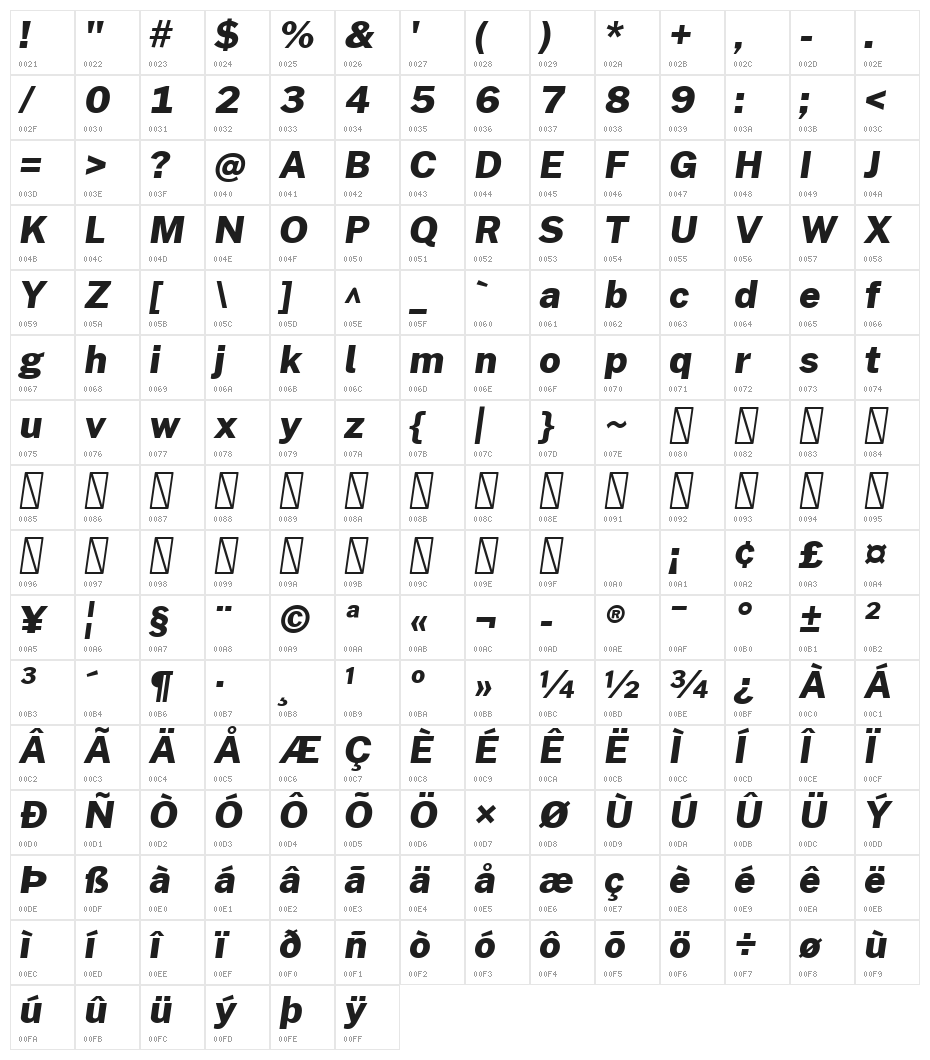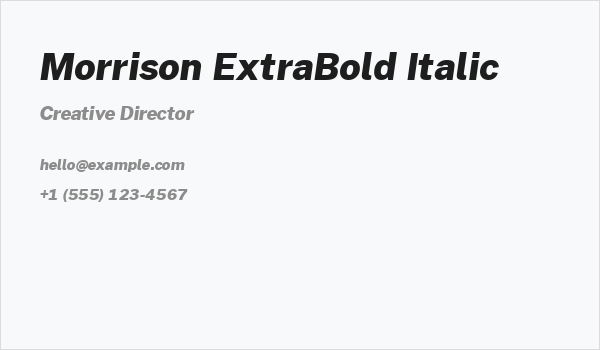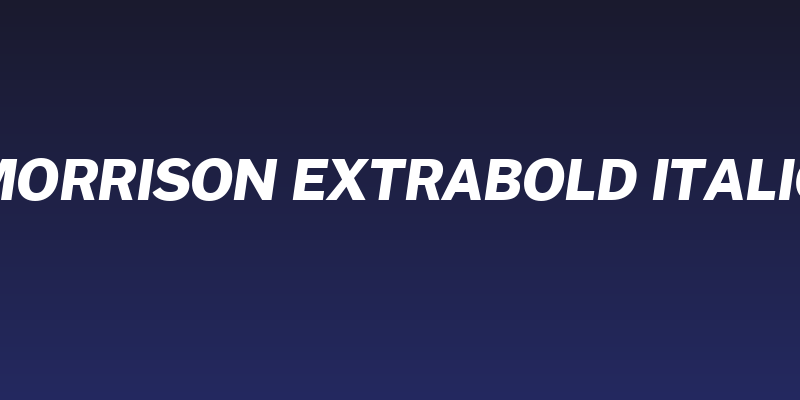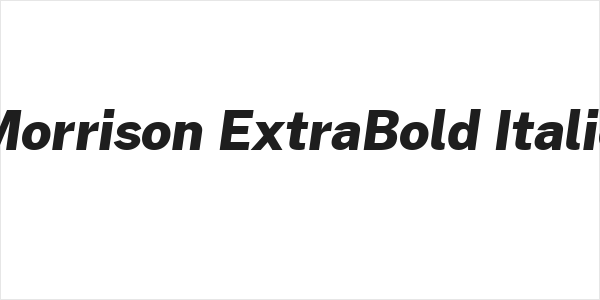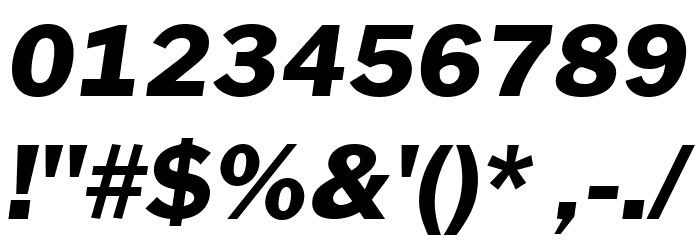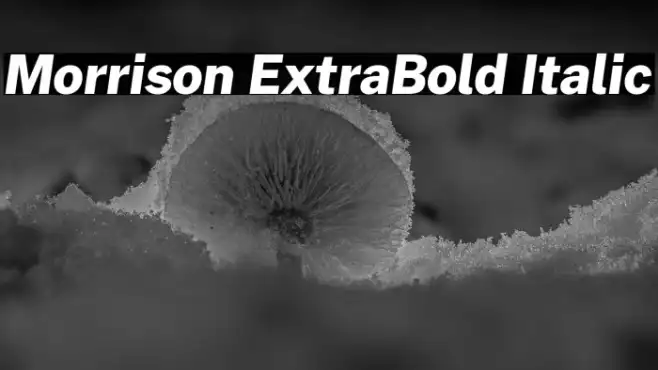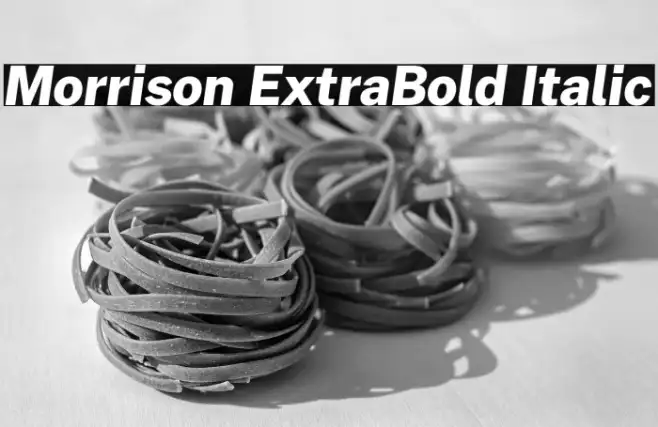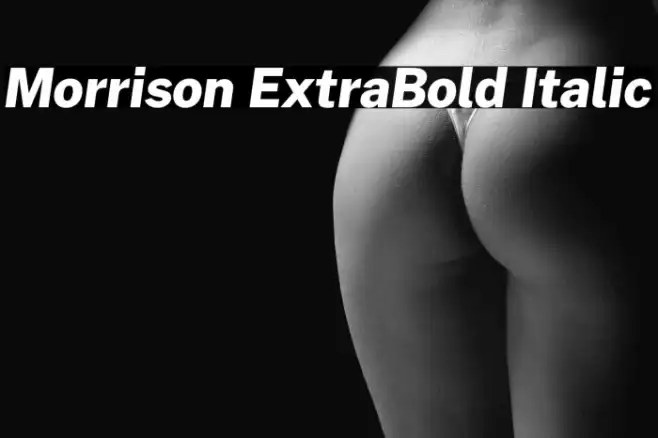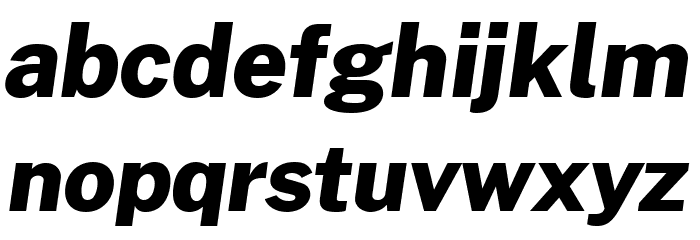
Morrison ExtraBold Italic Font
Morrison ExtraBold Italic Description
This font exhibits a bold and assertive style with a pronounced italic slant, giving it a dynamic and energetic appearance. The characters are robust and thick, ensuring high visibility and impact. The uppercase letters are strong and commanding, while the lowercase letters maintain a consistent weight and style. The numerals are clear and bold, matching the overall aesthetic. Special characters are well-defined and integrate seamlessly with the rest of the font. The design is modern and sleek, suitable for making statements.
| Use Case | Headlines, Logos, Advertising |
| Proposed Projects | Ideal for branding, advertising, headlines, and any project requiring a strong visual impact. |